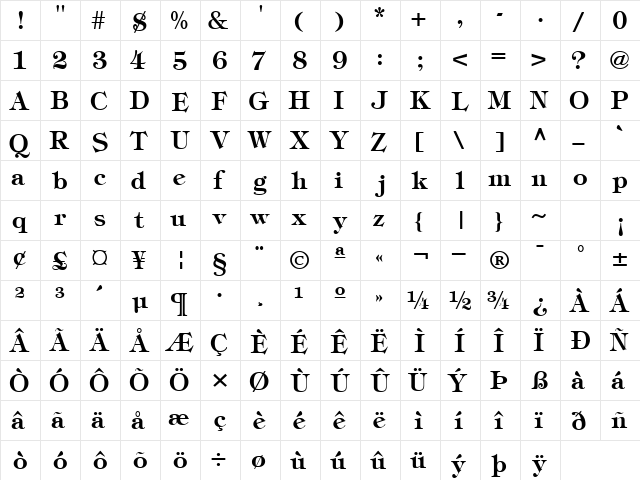
SophisticateSSK Bold
Design Context for SophisticateSSK Typeface
SophisticateSSK offers clean, dependable letterforms without strong stylistic allegiance, making it a practical choice for designers who need flexibility. Its bold stroke weight gives it real presence on the page.